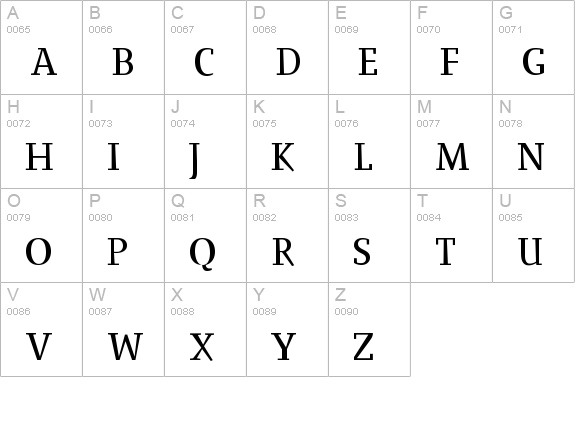
KeuleSerifEF-Regular Font Details
KeuleSerifEF-Regular is the standard, neutral variant in the KeuleSerifEF typeface family \xE2\x80\x94 well suited to general body text, paragraphs, and standard typographic work.
KeuleSerifEF-Regular is a stunning font that exudes elegance and sophistication. Its timeless serifs and clean lines make it perfect for a wide range of design projects, from branding and advertising to editorial layouts and packaging. Whether you're creating a logo for a high-end fashion brand or designing a magazine spread, KeuleSerifEF-Regular will add a touch of class and professionalism to your work. What sets KeuleSerifEF-Regular apart is not only its exceptional design but also the fact that it is freely available to download at FontsMarket.com. This means that you can access this remarkable font without any cost or restrictions. It's a rare opportunity to have access to such a high-quality typeface without having to worry about licensing fees or usage limitations. With its extensive character set and various weights, KeuleSerifEF-Regular offers versatility and flexibility in your designs. Whether you need a bold and impactful headline or a subtle and refined body text, this font has got you covered. Its legibility and readability ensure that your message will always be conveyed with clarity and style. The designers behind KeuleSerifEF-Regular have paid meticulous attention to detail, resulting in a font that is not only visually appealing but also technically sound. Each curve, stroke, and serif has been carefully crafted to create a harmonious balance between elegance and functionality. This font is a true testament to the artistry and craftsmanship that goes into creating exceptional typefaces. So, whether you're a professional designer, a student, or simply someone who appreciates beautiful typography, KeuleSerifEF-Regular is a font that you don't want to miss. Experience the freedom of downloading this remarkable typeface for free at FontsMarket.com and elevate your designs to new heights of sophistication and style.